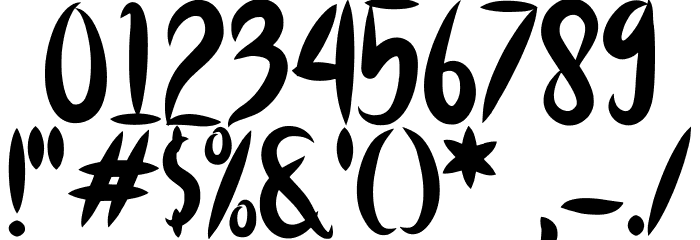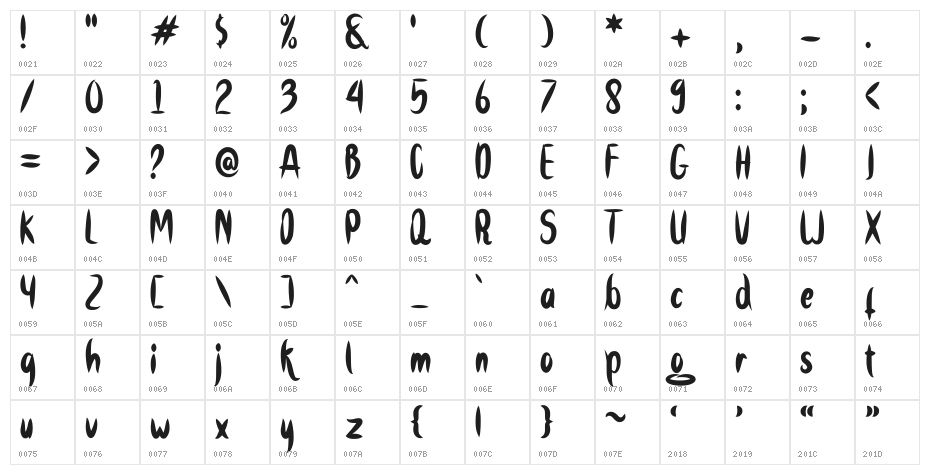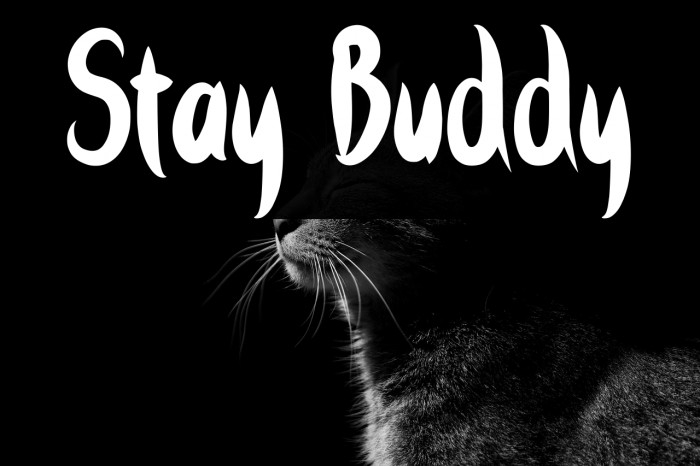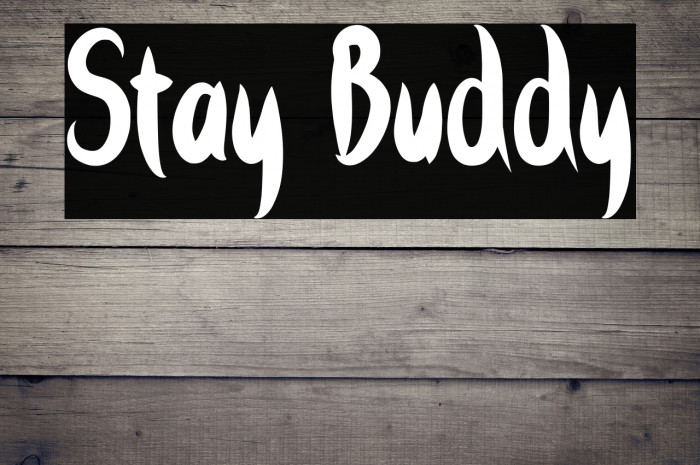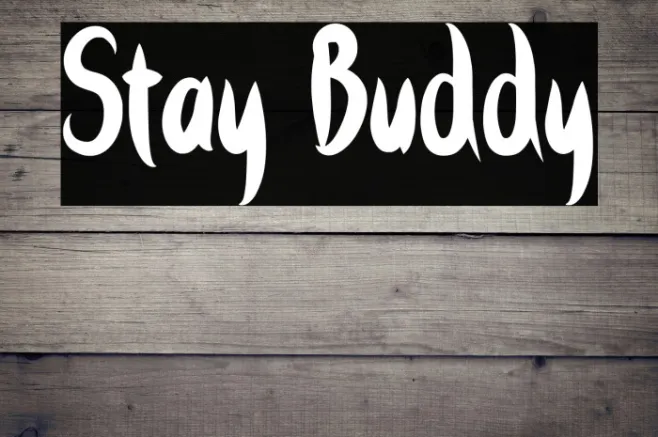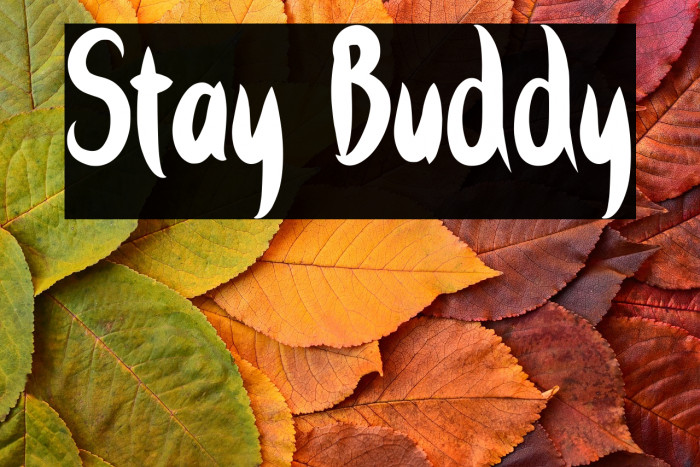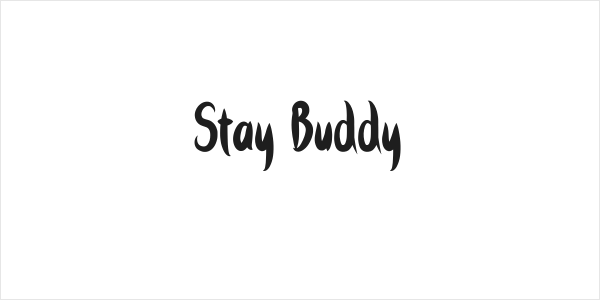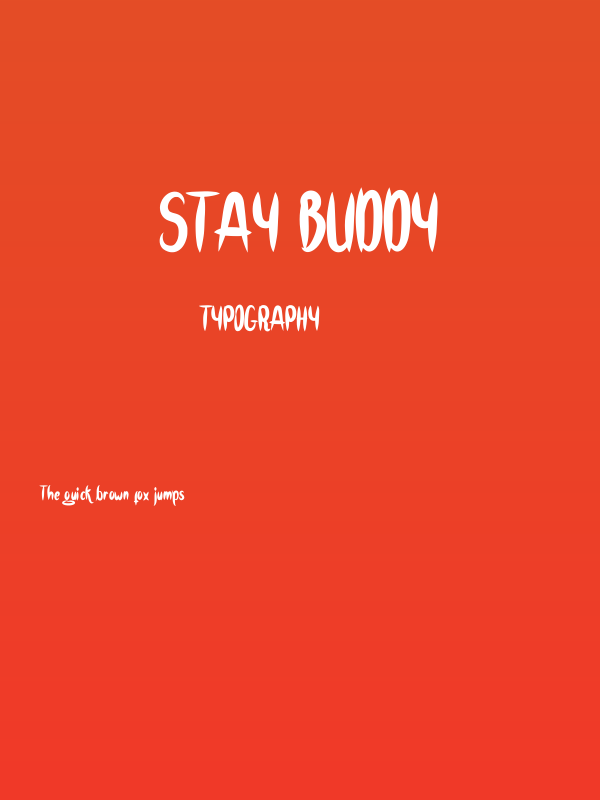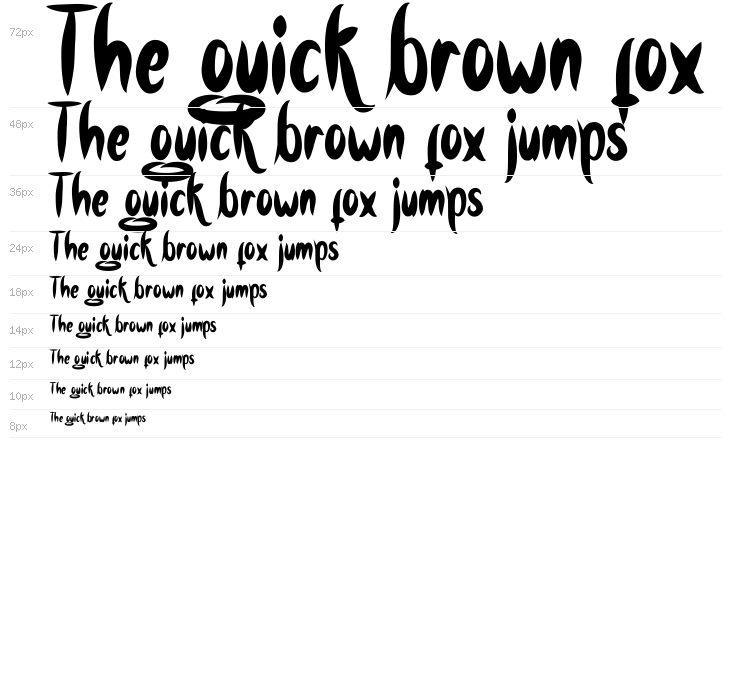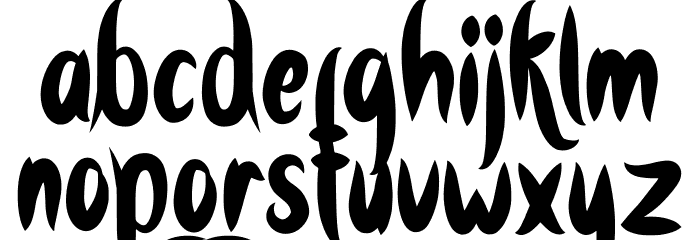
Stay Buddy Font
Stay Buddy Description
This font features a bold and expressive style with a handwritten appearance. The characters are dynamic and fluid, with varying stroke widths that create a sense of movement and energy. The uppercase letters are tall and slightly condensed, while the lowercase letters maintain a playful and casual feel. The numbers and special characters are equally bold, complementing the overall aesthetic. The font's unique character shapes and exaggerated curves make it stand out, offering a lively and artistic vibe suitable for creative projects.
| Proposed Projects | Ideal for posters, branding, social media graphics, and creative titles. |